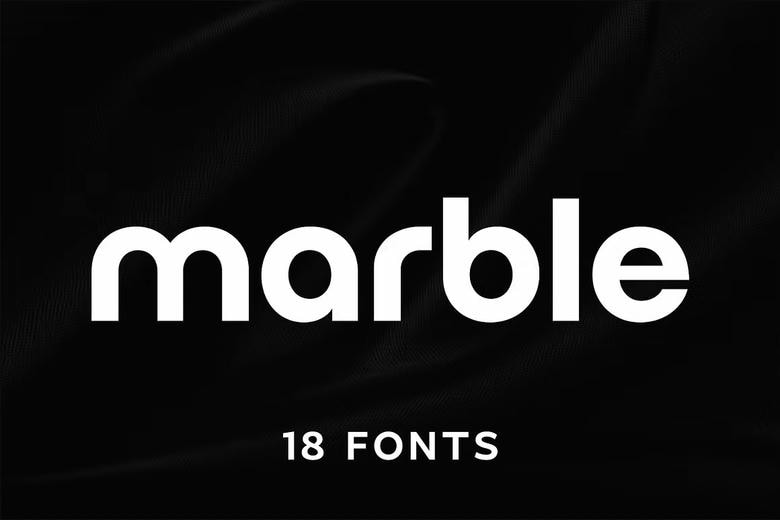
Marble Font
Marble is a stylish display sans-serif font for anyone looking to stand out. Its geometric shapes, sharp edges, and tall letters combine classic neo-grotesk style with a modern feel. The low contrast in its strokes gives Marble a smooth, polished look, making it a great choice for modern designs that need a bit of sophistication.
Marble works well for branding, logos, packaging, and editorial layouts. It stands out in headlines, signage, ads, and web design, where clarity and impact are needed. You can use Marble in fashion magazines, lookbooks, agency flyers, or business presentations. It fits right into any creative setting and helps your designs stand out.
Marble stands out for its excellent kerning and spacing, which help your text look balanced and attractive. While it is not meant for body text, Marble works especially well for titles, headers, and other prominent uses where bold graphics matter. It is a great choice if you want your design to stand out.